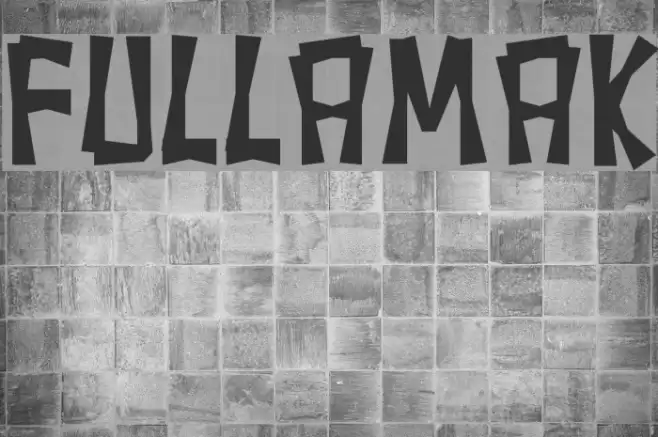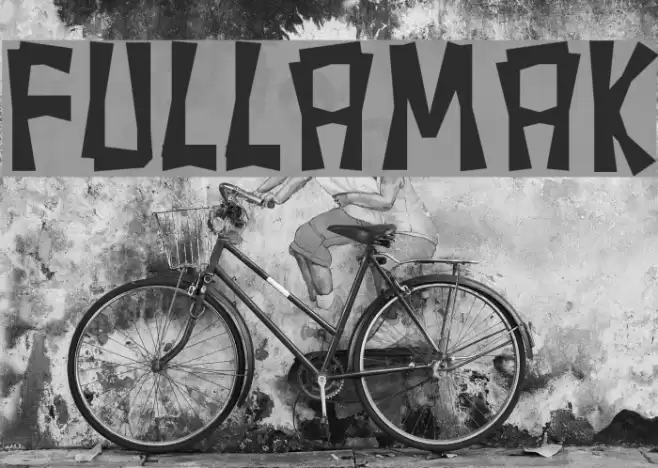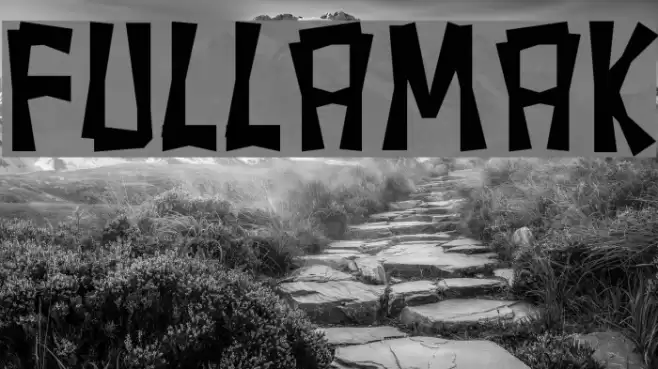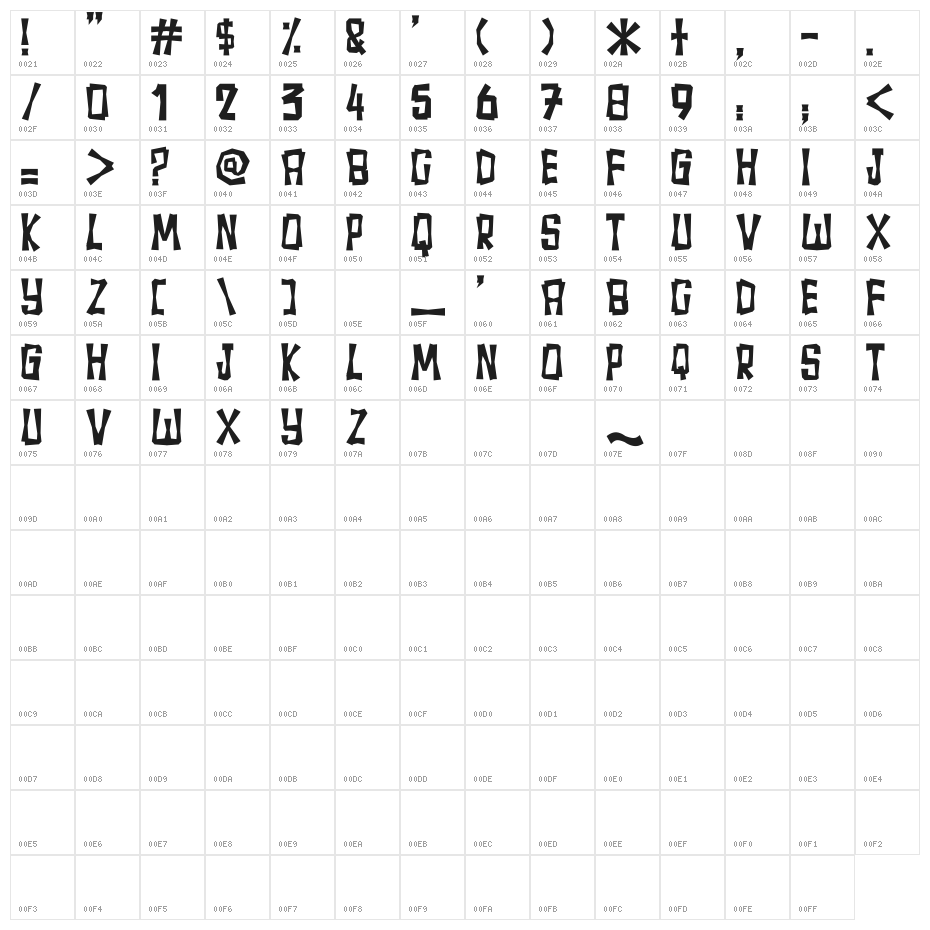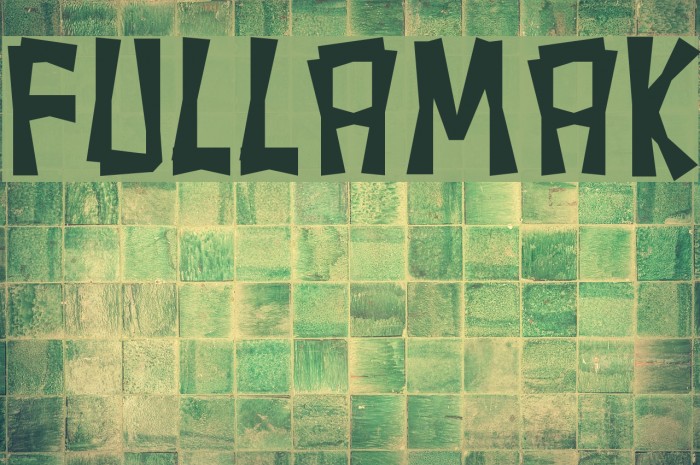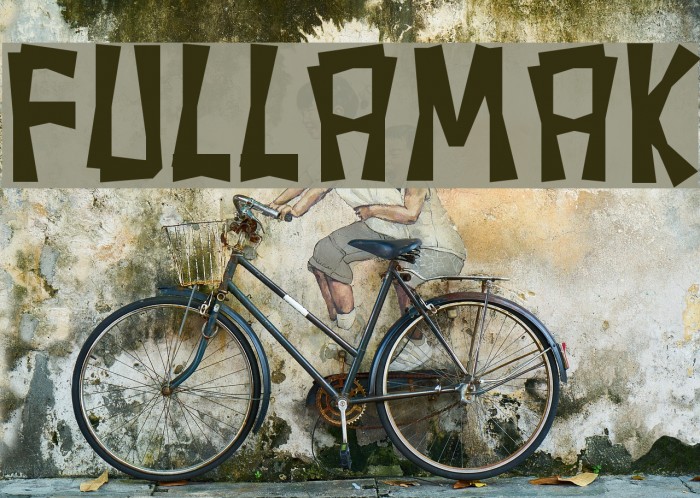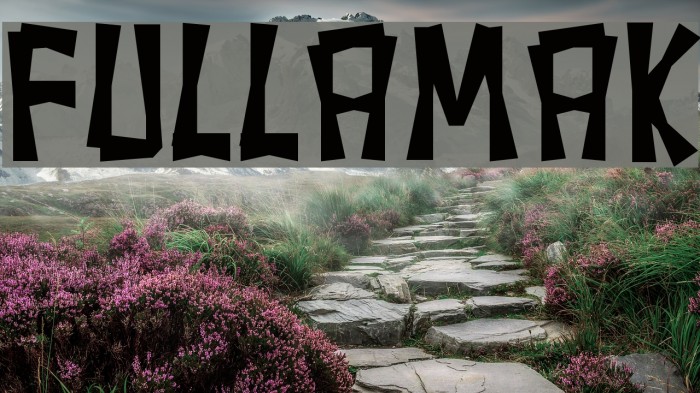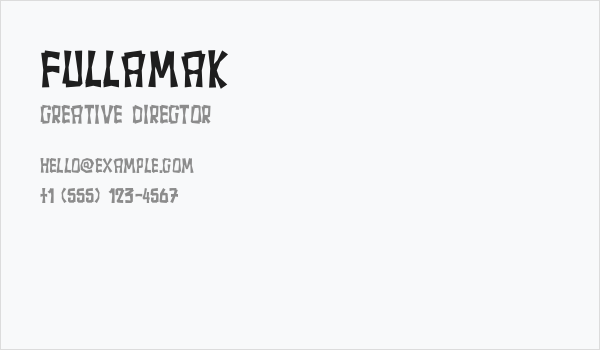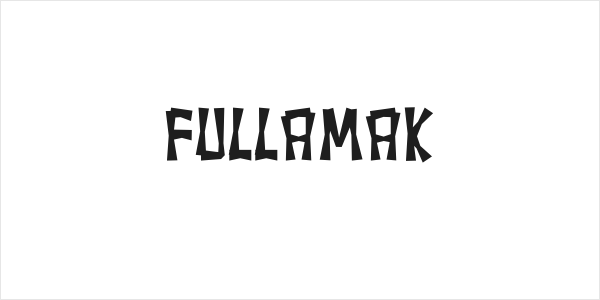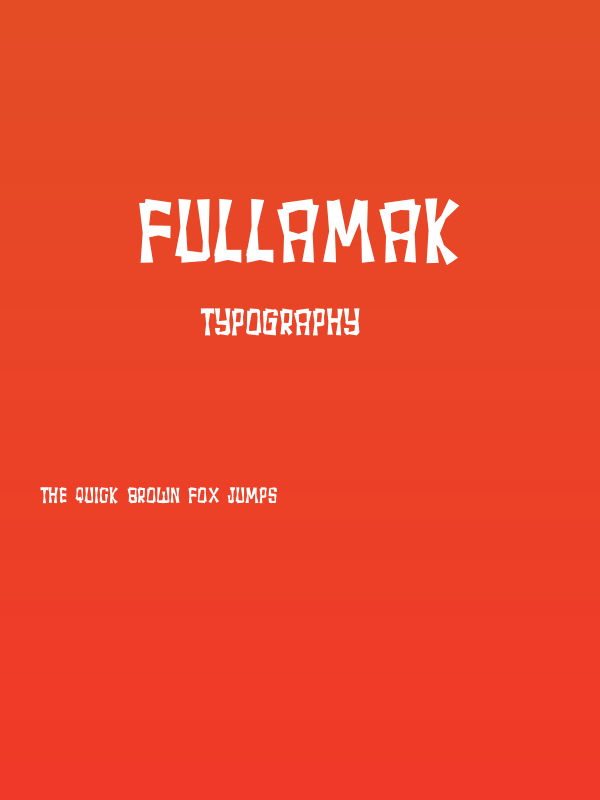
Fullamak Font
Fullamak Description
This font features a bold and angular design with a distinctly modern and edgy appearance. The characters are crafted with sharp, irregular edges, giving them a rugged and dynamic look. The uppercase and lowercase letters maintain a consistent style, with a strong emphasis on geometric shapes and a slightly condensed form. The numerals and special characters follow the same design principles, ensuring uniformity across the entire typeface. The font's unique style makes it stand out, ideal for projects that require a bold statement.
- Proposed Projects: Perfect for posters, album covers, branding, and any design that needs a bold, striking impact.